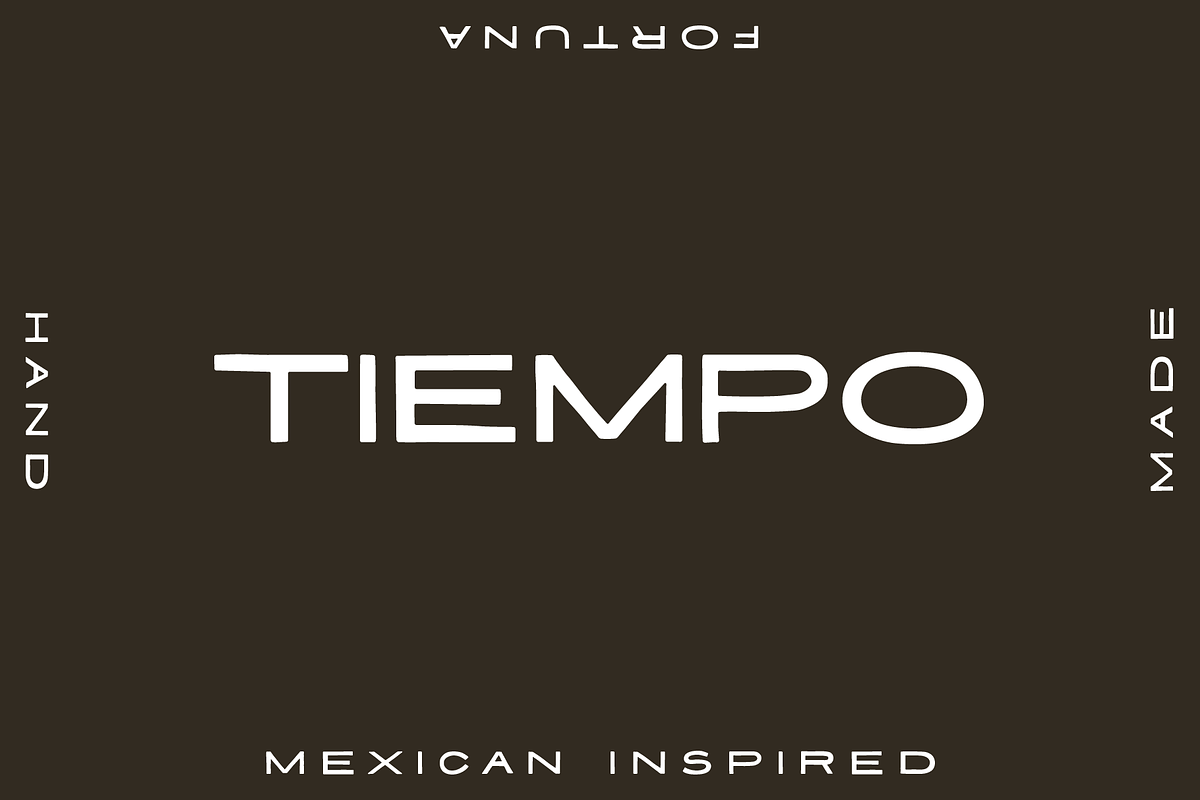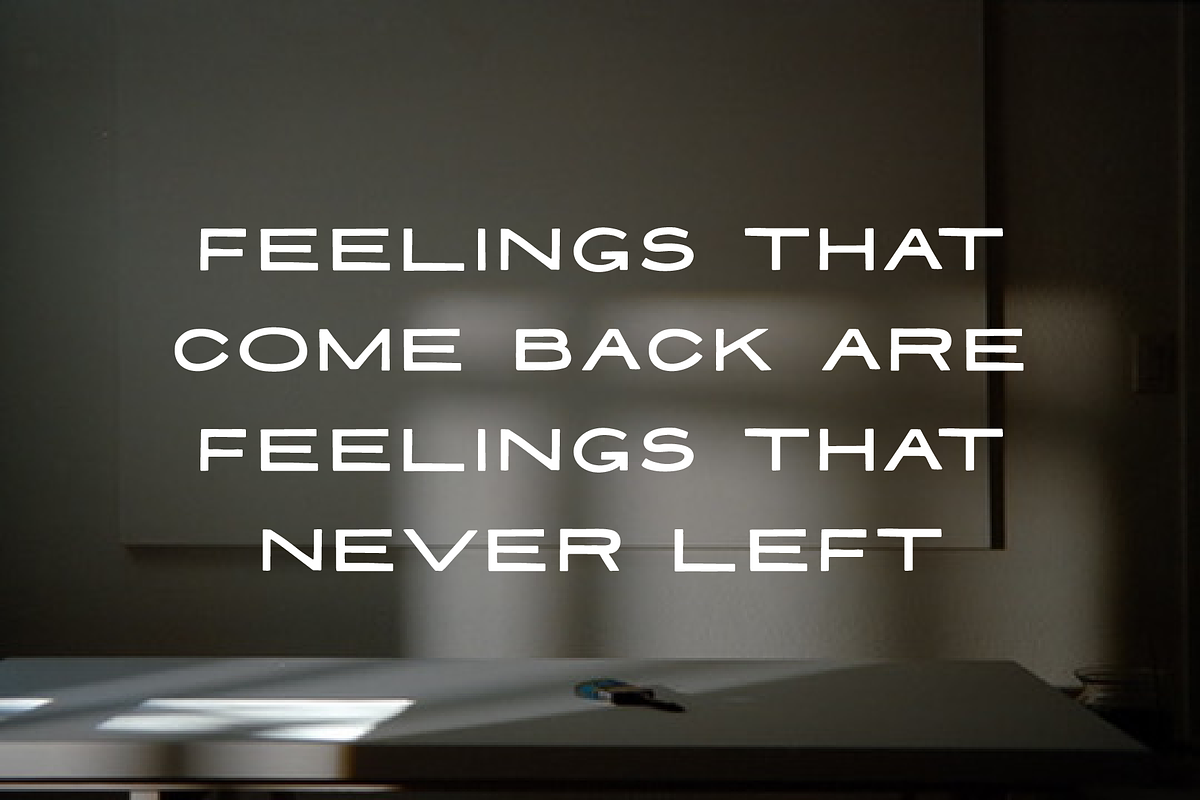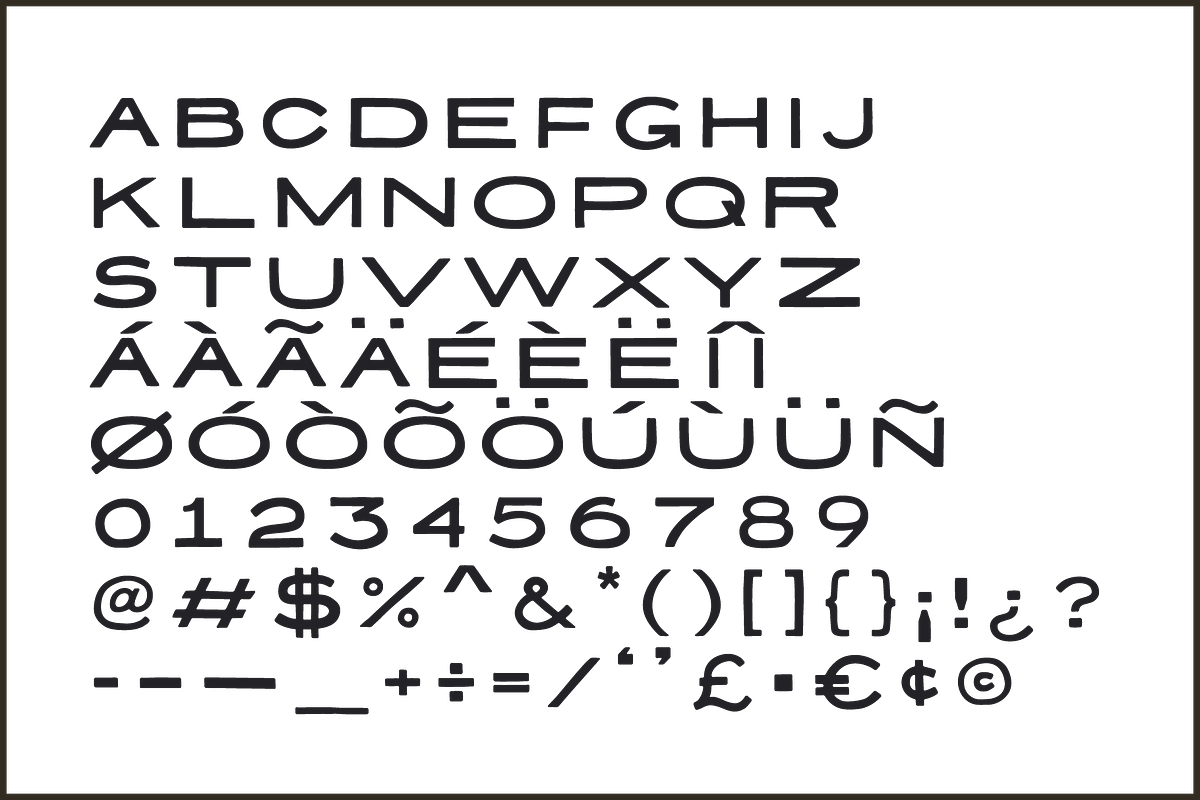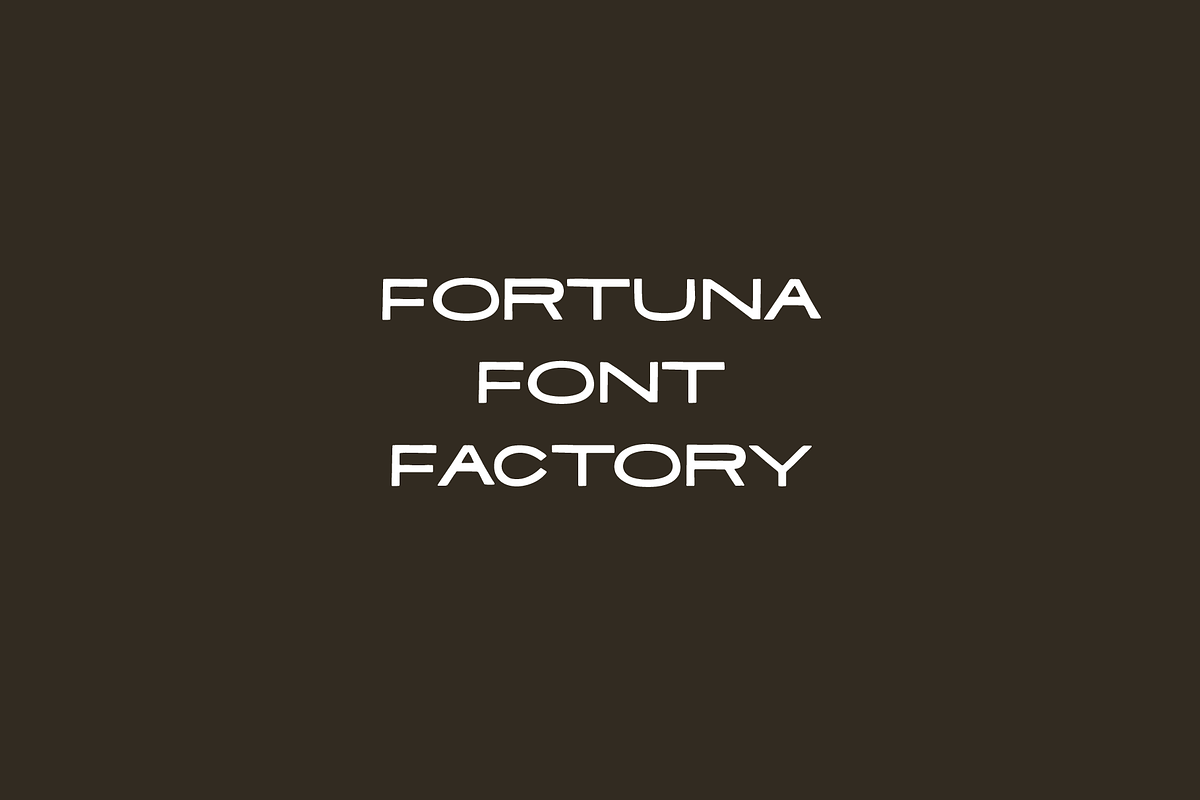
Tiempo: Hand Drawn Sans Serif
TIEMPO is inspired by contemporary Mexican sign painting.
Great for stacked wayward signs and branding.
- Uppercase letters
- Digits
- Accents